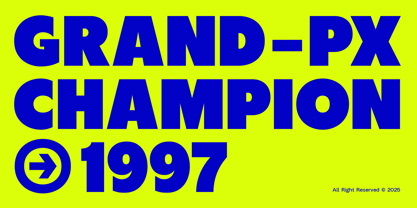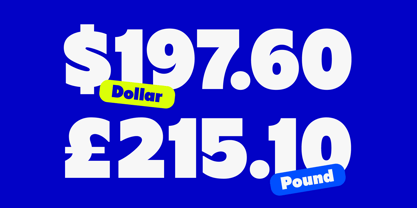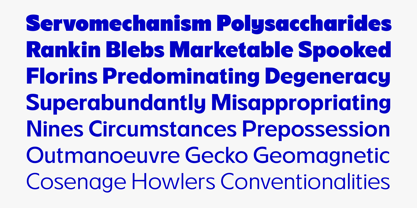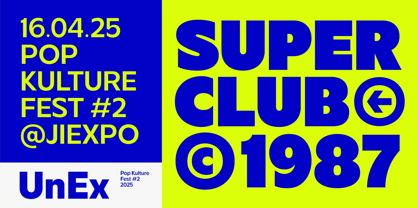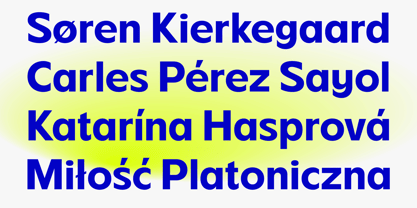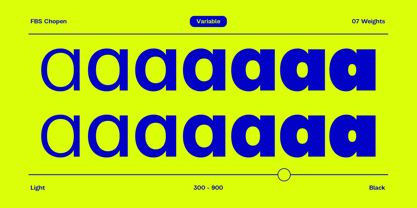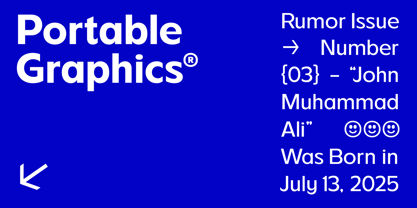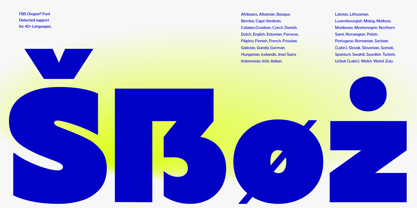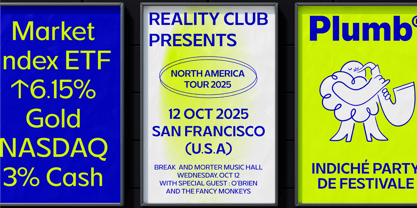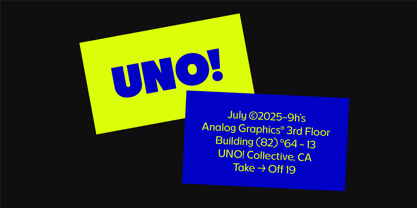
FBS Chopen
The FBS Chopen Font Family was designed by Febri Riansah and published by Febspace Studio. FBS Chopen contains 7 styles and family package options.
FBS Chopen delivers a geometric sans-serif design, inspired by the retro aesthetics of the 80's sans, with a modern and minimalist touch. Designed for today’s digital and branding needs, it offers the perfect balance of readability and style. Its clean, structured look makes it an excellent choice for interface design, corporate branding, and contemporary visual identities.
Extensive Glyph Set and Features
Every font in the Chopen family is equipped with over 431 glyphs, offering advanced typographic options to support your creativity:
• OpenType Features
• Multilingual Support
Font Family Overview
FBS Chopen collection includes seven carefully designed weights, from light to black,
providing flexibility for both subtle and bold designs.
Explore FBS Chopen and discover how its versatile design can enhance your next creative project.